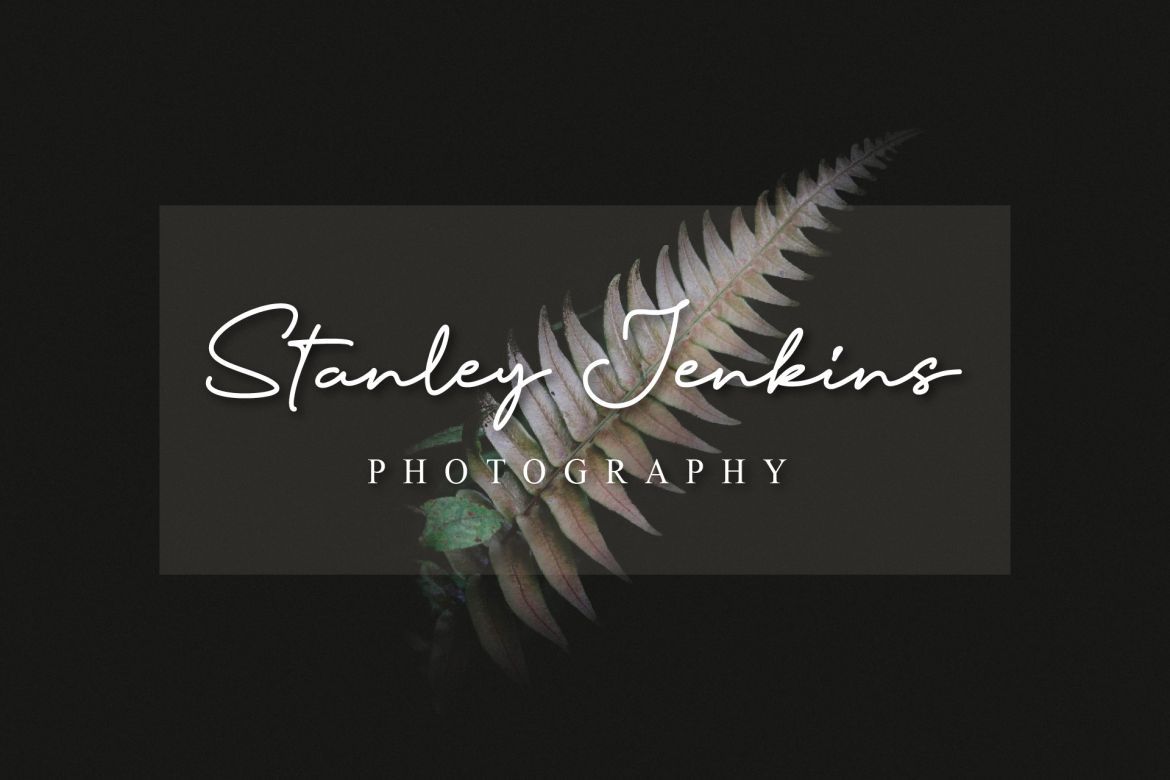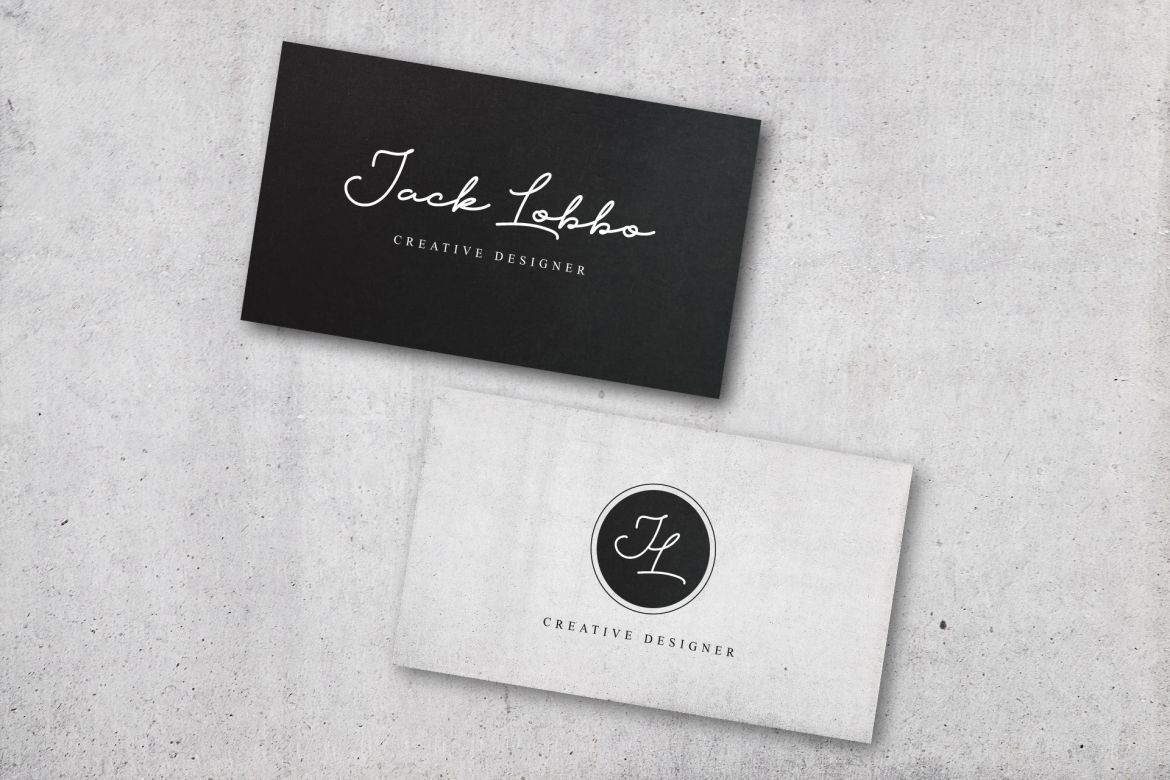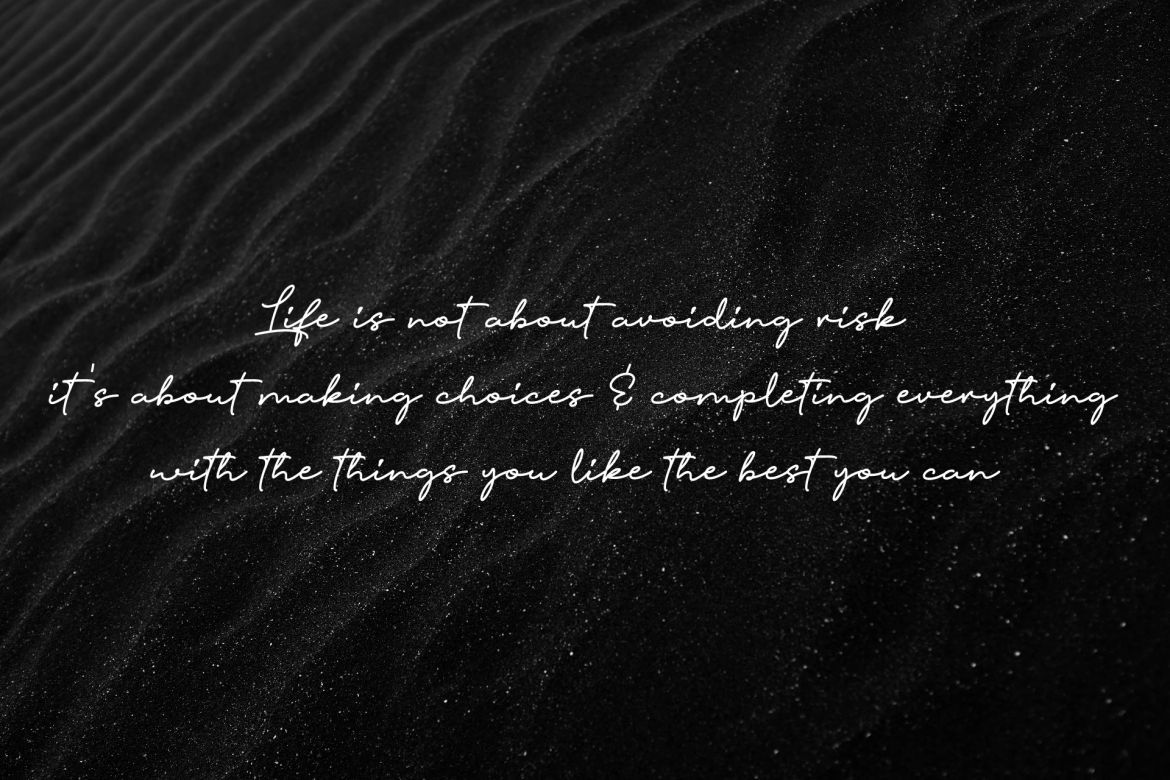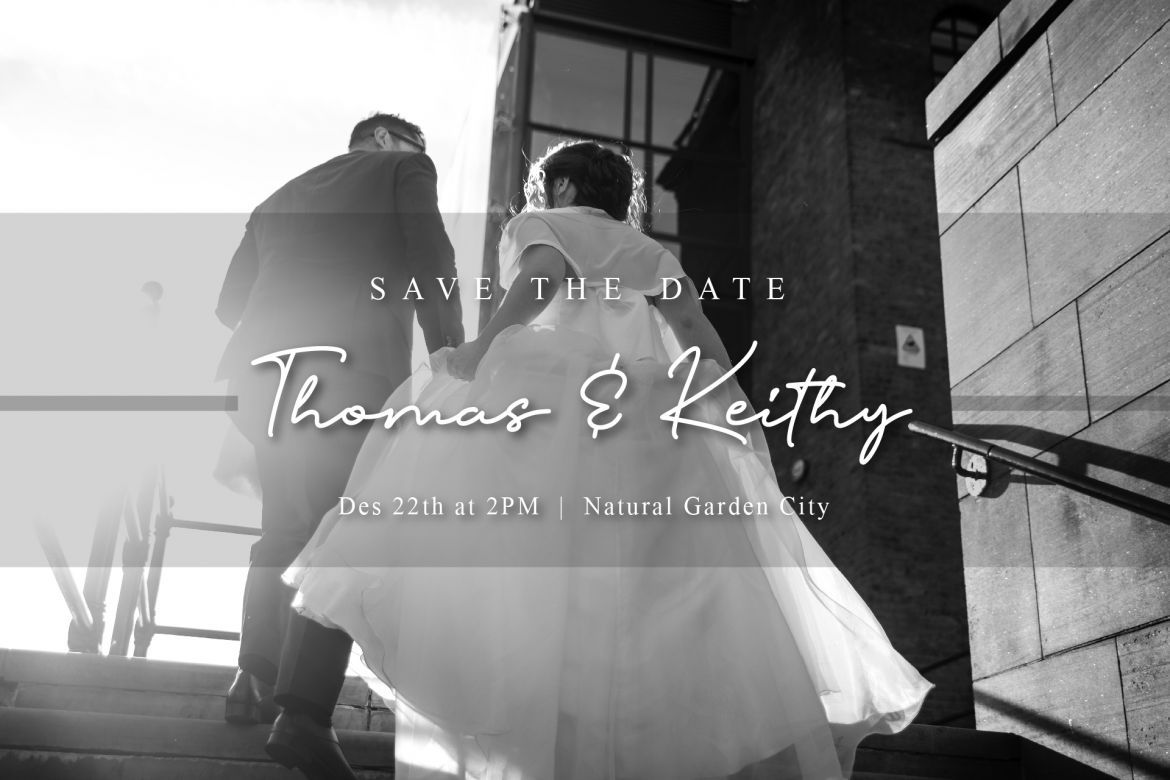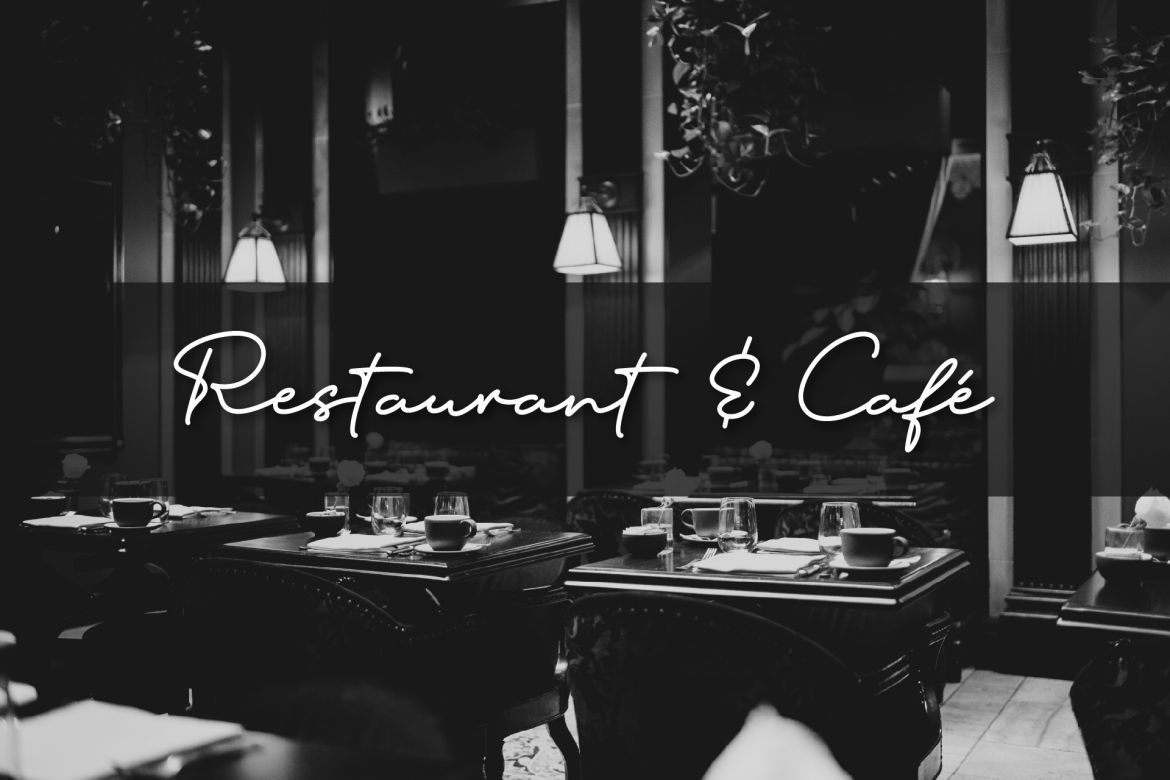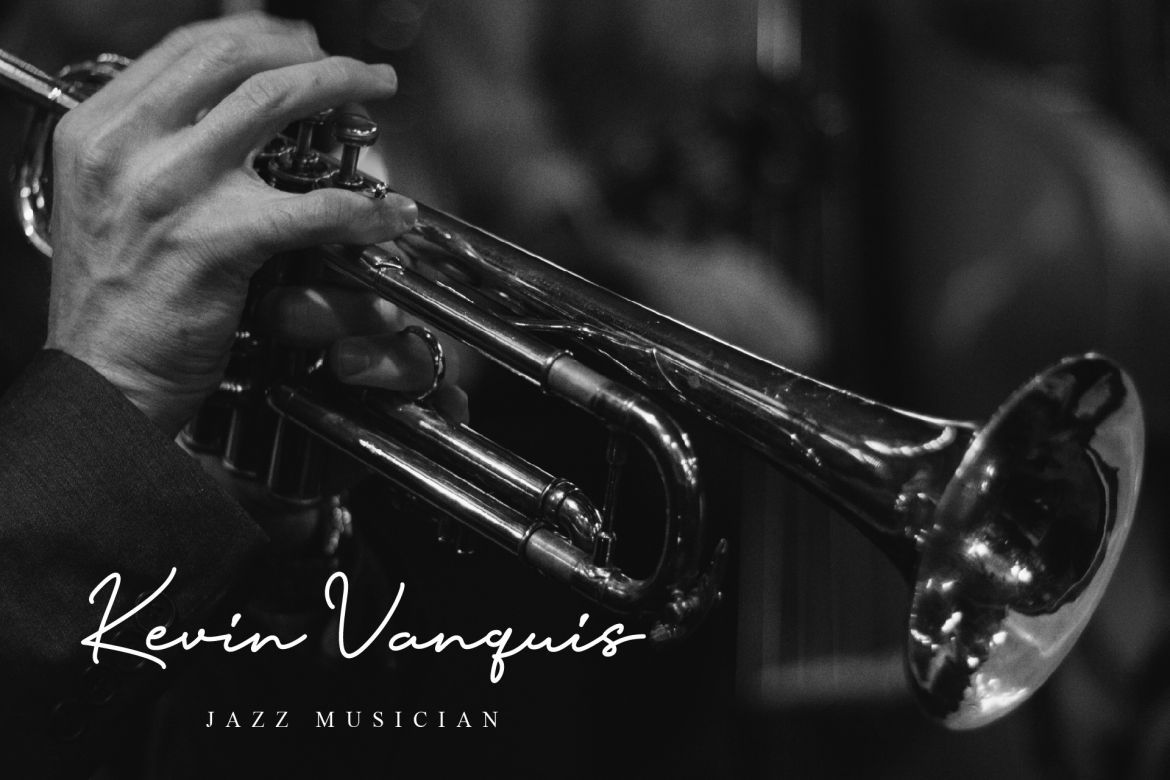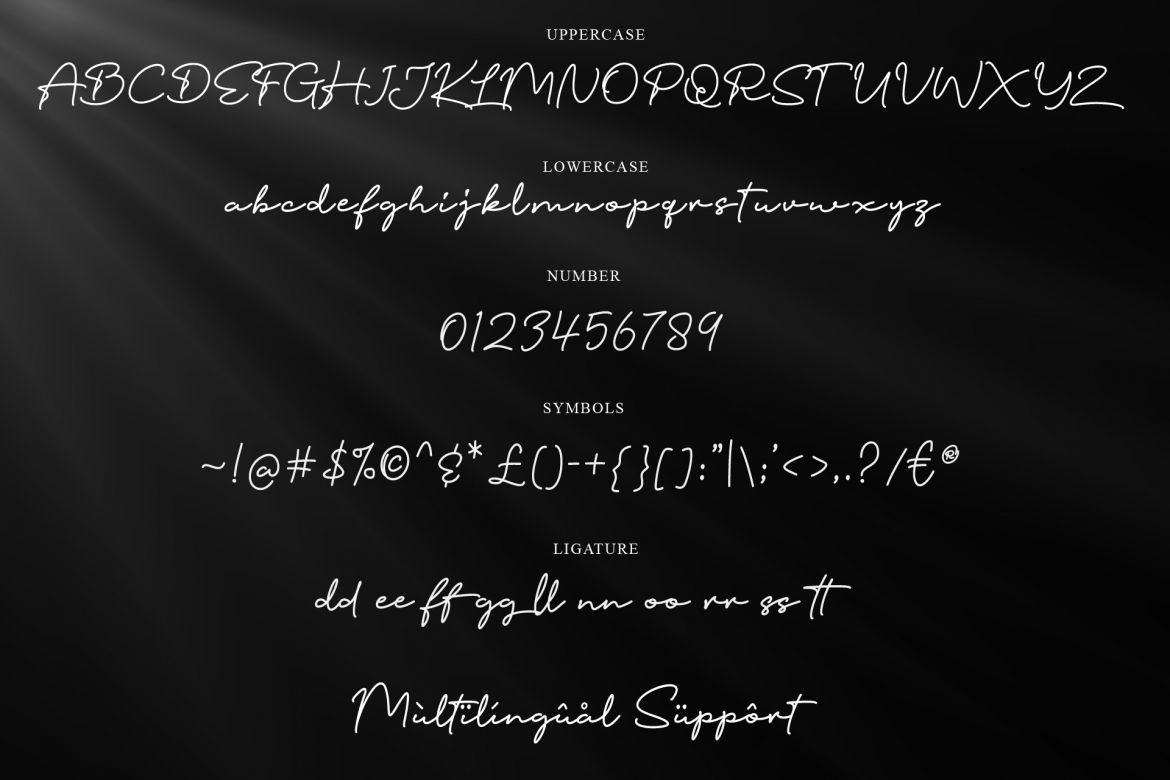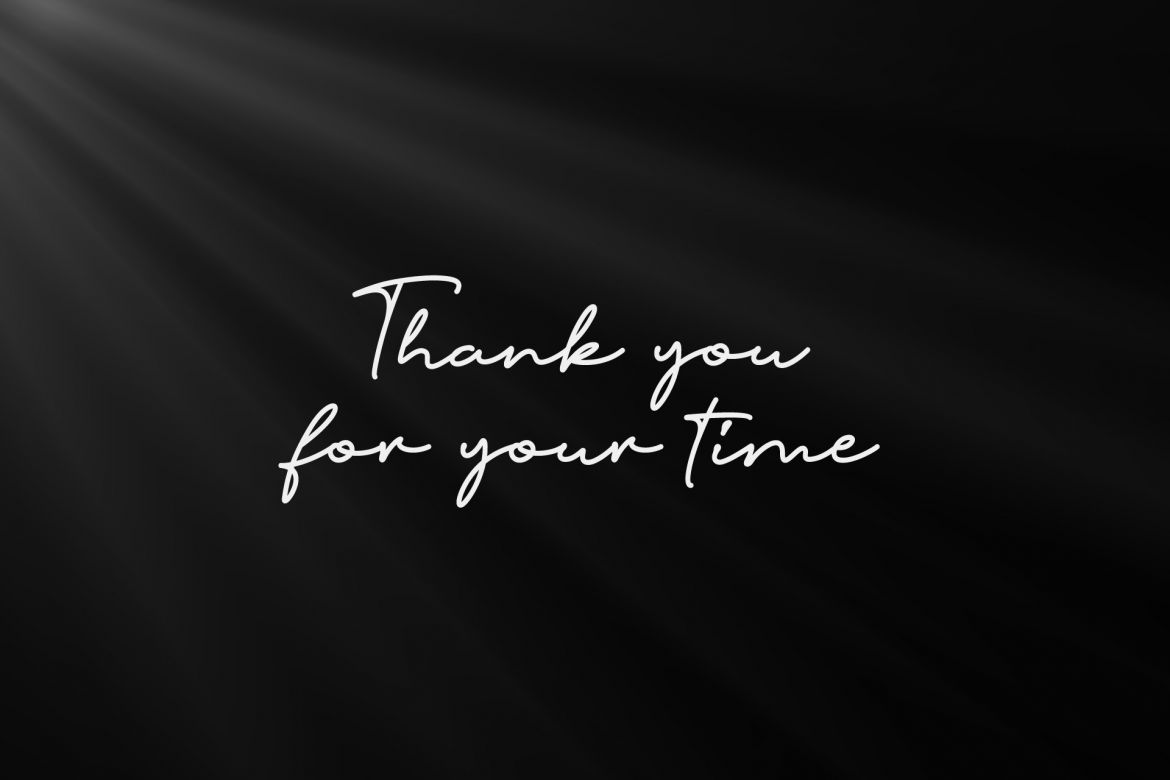
Pottoray - Signature Font
we just introduced our newest product, Pottoray Signature Font Great choice for you who loves the classy things, yet elegant to your special project, business or personal stuffs. this font can be the best choice for you.
Pottoray Signature font is equipped with:
• Uppercase letters
• Lowercase letters
• Numbers
• Punctuation & symbols
• Ligature
• Multilingual support
• pottoray signature font great choice for you, who loves the classy things, yet elegant to your special project, this font can be the best choice for you.
• pottoray signature font great choice for you, with simple style yet elegant to your business. this font can be the best choice for you.